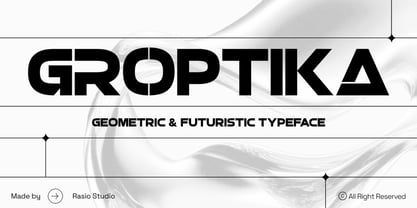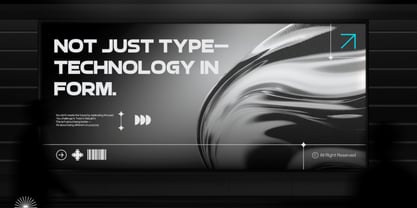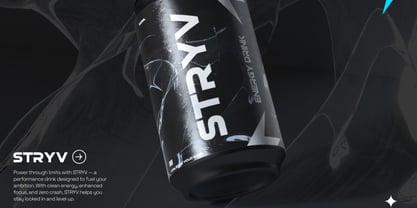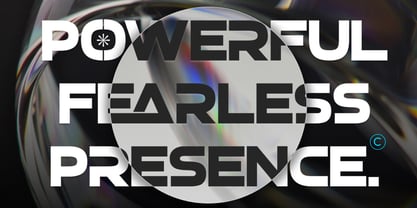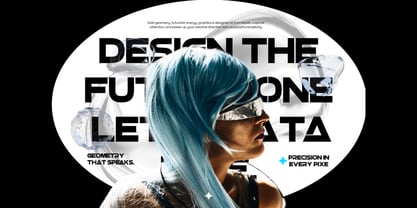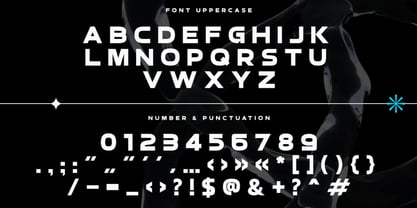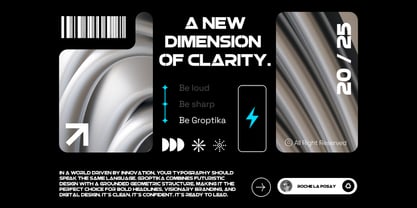
Groptika
by Rasio Studio
The Groptika Font Family was designed by Fajar Indra and published by Rasio Studio. Groptika contains 1 styles. More about this family
Groptika is a bold geometric display typeface built with a futuristic edge and digital precision. Designed for tech-forward creatives, it combines sharp angular cuts with smooth minimalist curves, creating a perfect balance between innovation and style. The clean geometry and strong construction make Groptika stand out in modern branding and sci-fi visuals. With uppercase letters, numerals, and punctuation, Groptika delivers maximum versatility for technology branding, esports logos, digital posters, and experimental layouts. Every letterform reflects power, symmetry, and a sleek contemporary aesthetic that defines the future of design.
Designers: Fajar Indra
Foundry: Rasio Studio